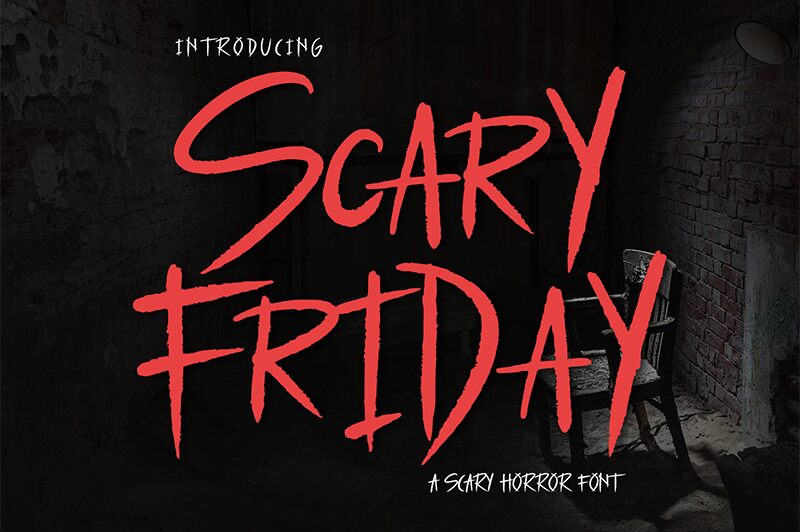
Scary Friday
Scary Friday font by Alpaprana Studio is a display typeface with a sharp and angular scary style. It creates intense, edgy designs that give an emotional impact of tension and excitement associated with horror or thriller themes. Reflecting gothic or horror-inspired design elements from late 20th-century typography, this choice of text instantly makes any project daring and extreme.
This free techno display font finds the perfect application when used in Halloween events, theme parks, museum exhibitions related to extinct wildlife, art performances, scary movie poster designs, music albums covers for heavy metal bands, concert tickets production backgrounds or skateboards sticker design ideas.